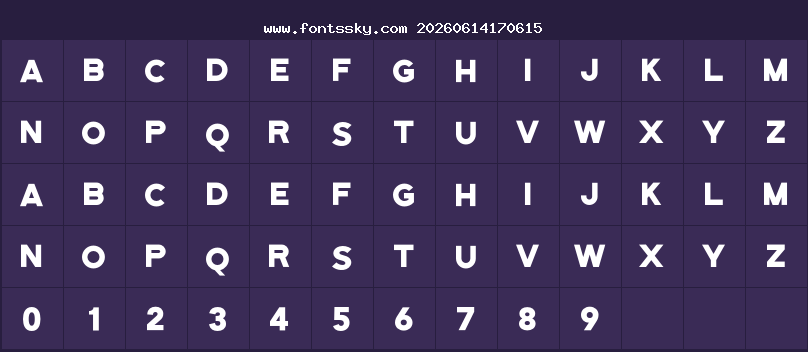
Bourbon Grotesque Preview
• Font Name: Bourbon Grotesque
• Designer: Jeremy Vessey
About Bourbon Grotesque.otf
Bourbon Grotesque.otf is a modern, elegant sans-serif font designed for ultimate readability and visual harmony. Perfect for branding, headlines, web design, and print materials.